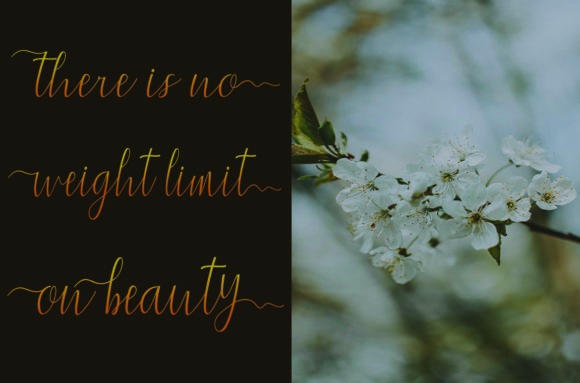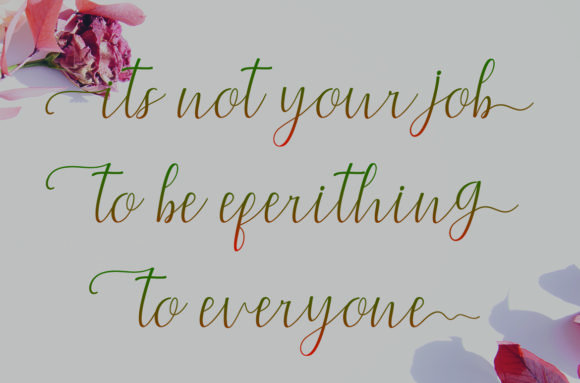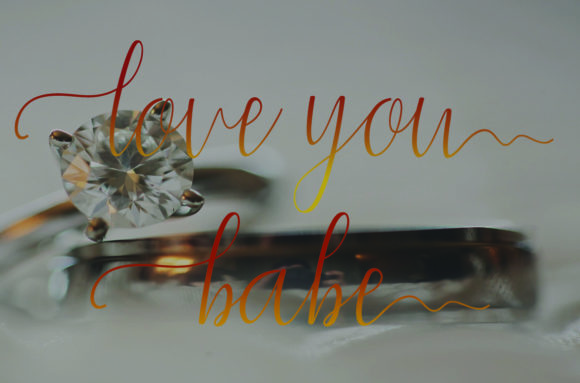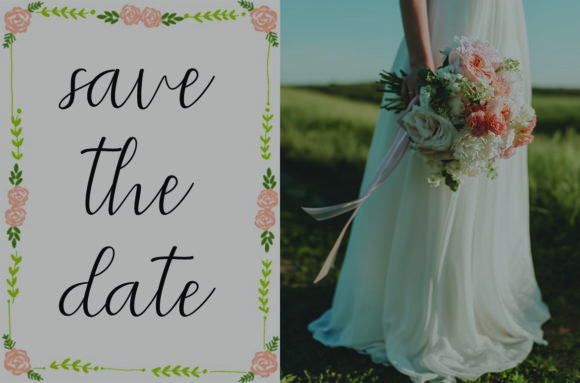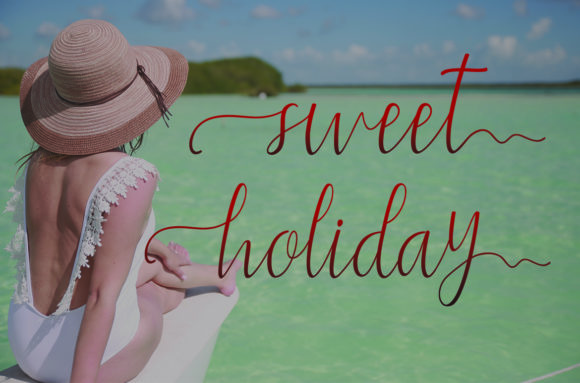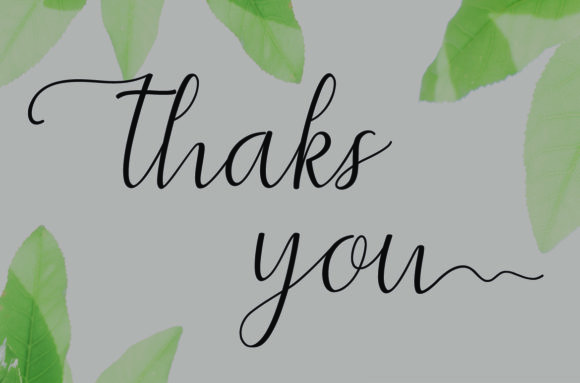
Bahira Font: Elevate Your Designs with Elegance and Charm
Are you looking for a font that exudes elegance and sophistication? Look no further than the stunning Bahira Font. This beautiful script font is a stylish homage to classic calligraphy, making it perfect for designers and crafters seeking to add a touch of refinement to their projects.
The Characteristics of Bahira Font
Bahira Font is a masterpiece of typographic design, boasting a range of features that make it both charming and elegant. Some of its key characteristics include:
- Varying Baseline: The font’s varying baseline gives it a sense of fluidity and movement, making it perfect for creating eye-catching headlines and titles.
- Smooth Lines: The smooth lines of Bahira Font give it a luxurious feel, making it ideal for designs that require a high level of sophistication.
- Gorgeous Glyphs: The font features a range of beautiful glyphs, including stunning alternates that allow you to add a touch of personality to your designs.
Special Features of Bahira Font
Bahira Font is more than just a beautiful script font – it’s also packed with special features that make it incredibly versatile. Some of these features include:
- Alternate Glyphs: The font includes a range of alternate glyphs, allowing you to add a touch of uniqueness to your designs.
- Ligatures: Bahira Font also features ligatures, which help to create a sense of flow and continuity in your designs.
Why Choose Bahira Font?
So why should you choose Bahira Font for your next design project? Here are just a few reasons:
- Elegance: Bahira Font is the epitome of elegance, making it perfect for designs that require a high level of sophistication.
- Versatility: The font’s range of features, including alternate glyphs and ligatures, make it incredibly versatile.
Bahira Font is perfect for designers and crafters who are looking to add a touch of elegance and sophistication to their projects. Whether you’re creating:
- Stationery: Use Bahira Font to create beautiful stationery, including invitations, greeting cards, and more.
- Branding: The font’s elegant feel makes it perfect for branding projects, including logos, business cards, and more.
- Packaging: Bahira Font is also great for packaging design, adding a touch of luxury to your products.
In conclusion, Bahira Font is a stunning script font that is sure to elevate your designs with its elegance and charm. With its range of features, including a varying baseline, smooth lines, gorgeous glyphs, and special features like alternate glyphs and ligatures, it’s the perfect choice for designers and crafters seeking to add a touch of sophistication to their projects. So why wait? Download Bahira Font today and start creating beautiful designs that are sure to impress.